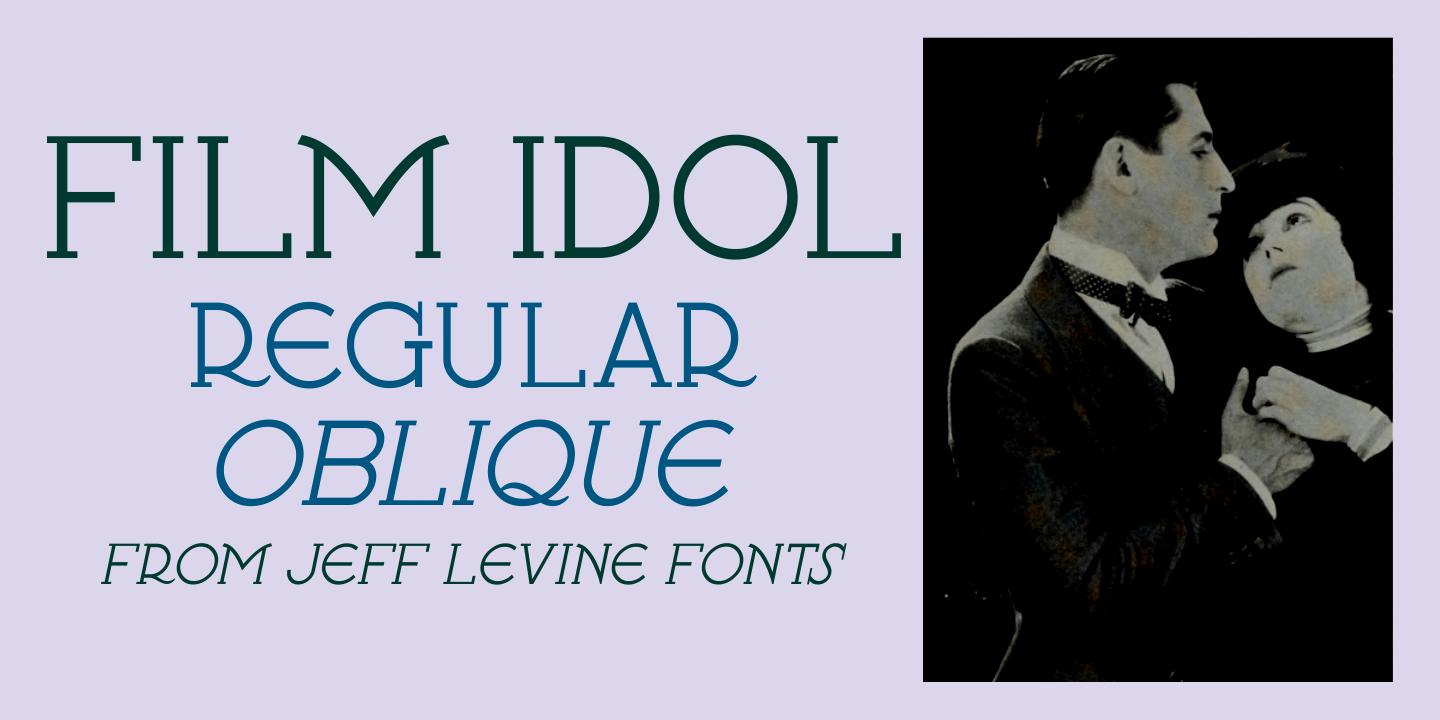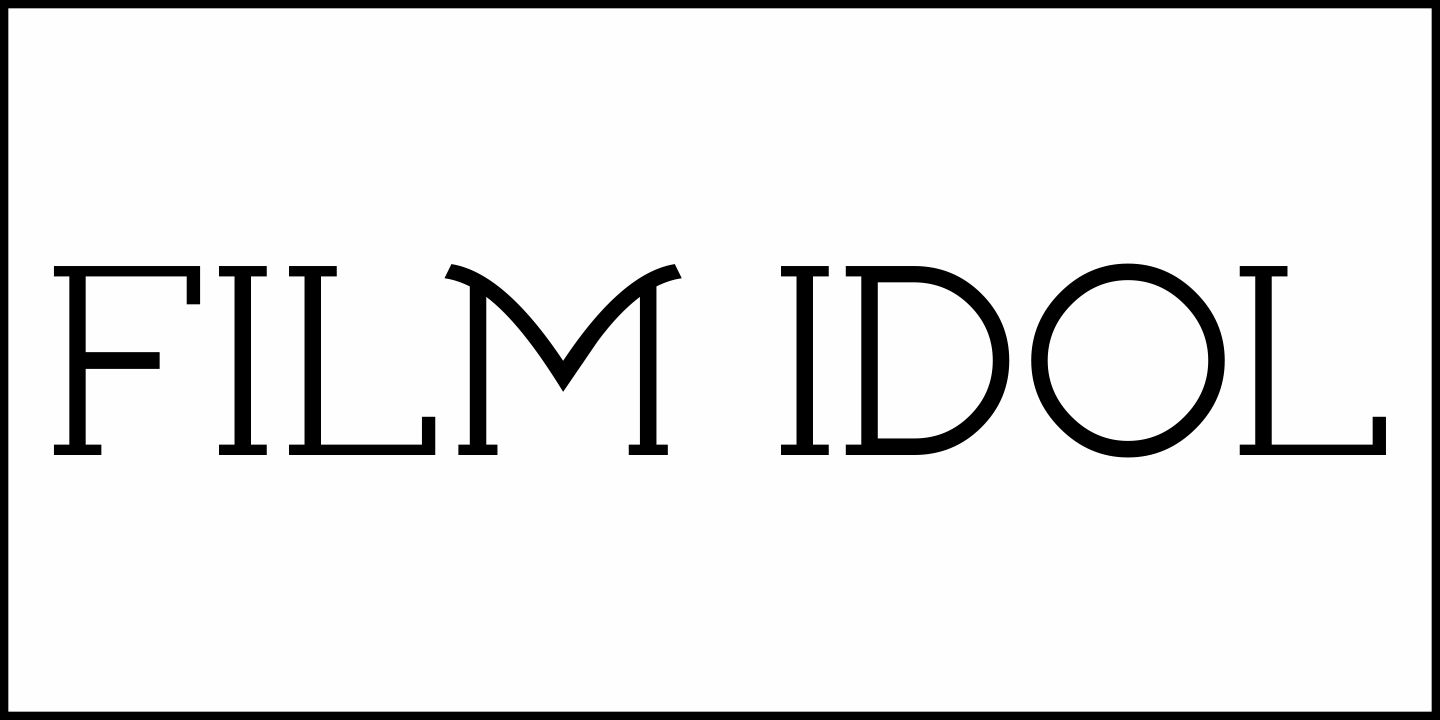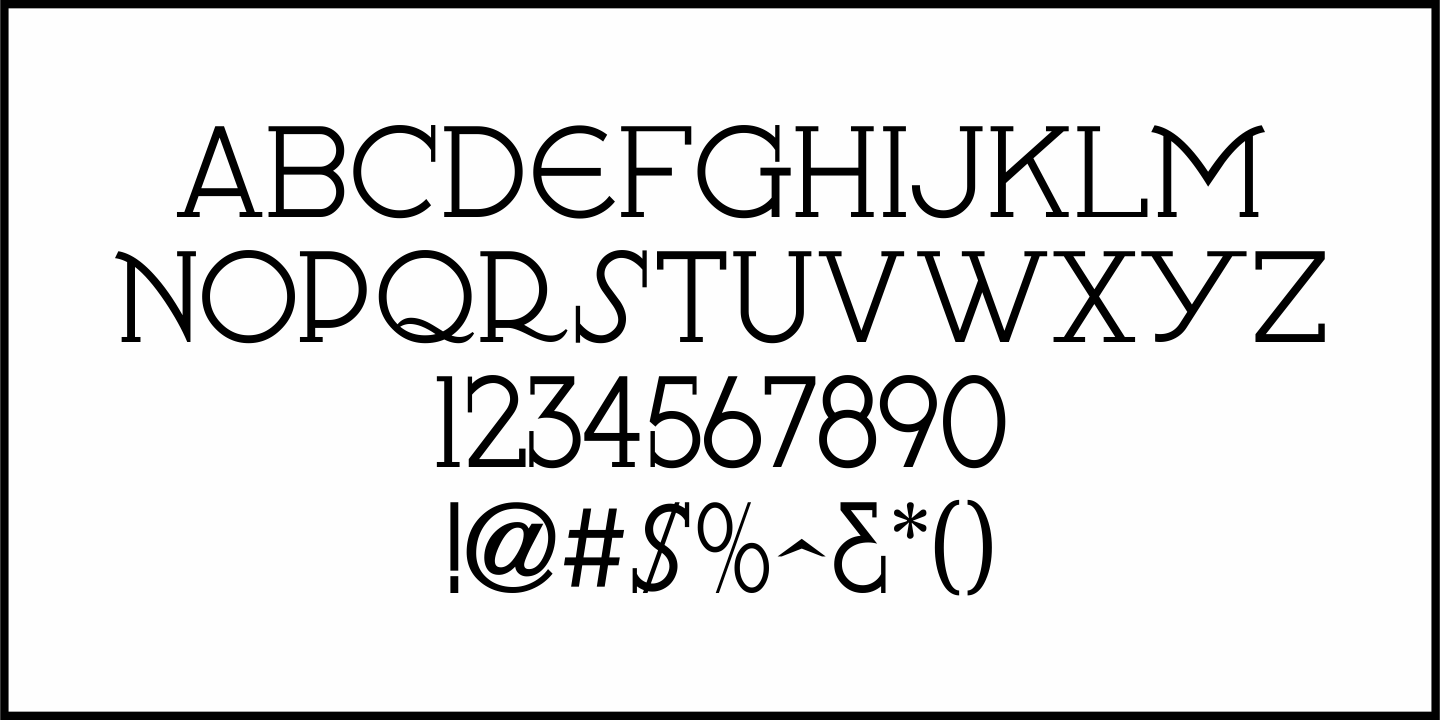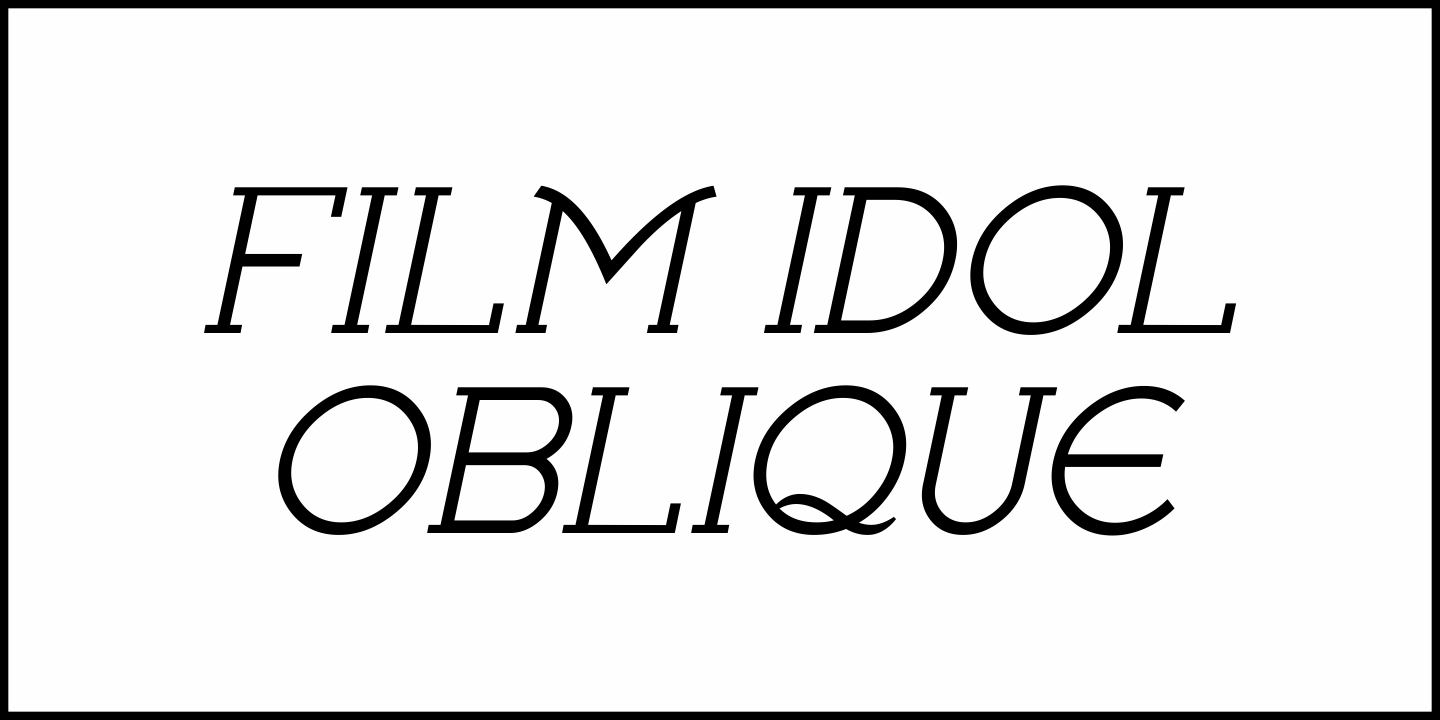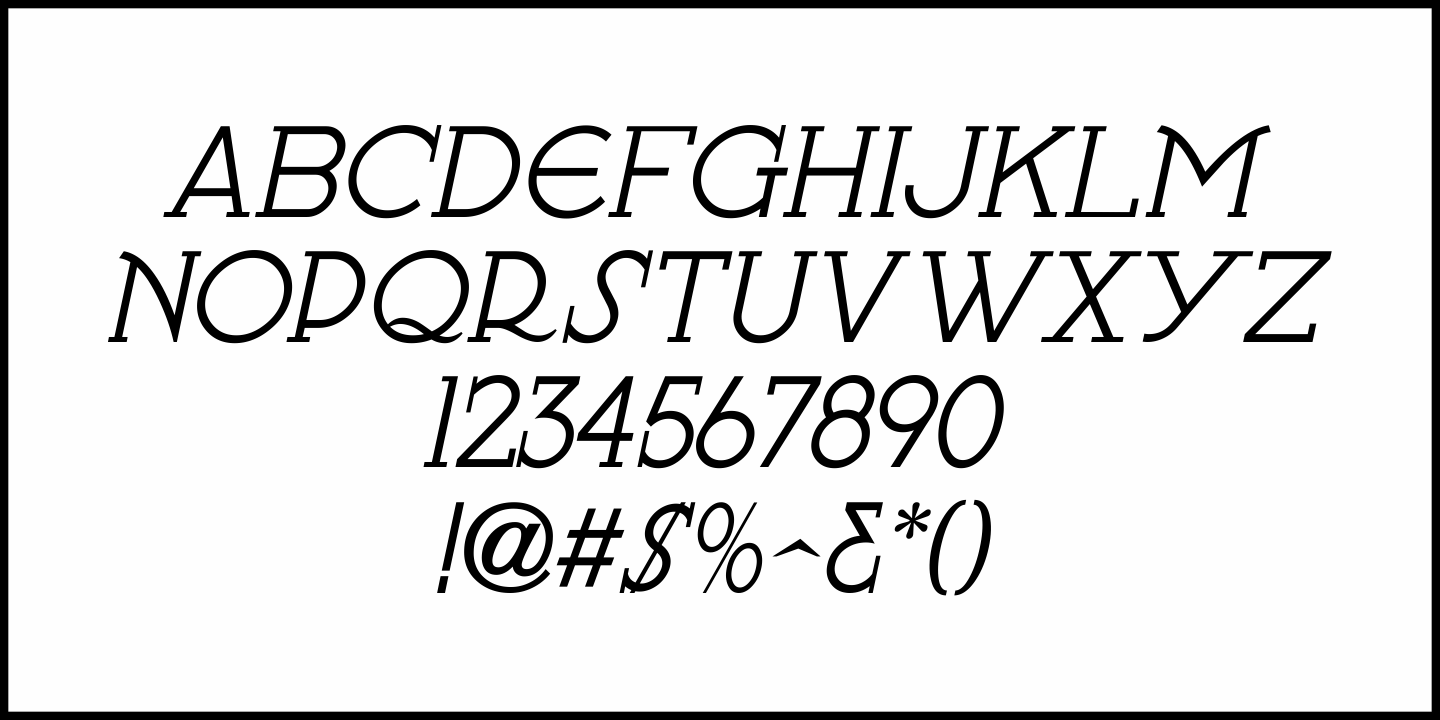
Film Idol
An ad in the May 2, 1931 issue of Motion Picture Herald for the Marlene Dietrich film "Indiscretion" inspired Film Idol JNL, which is available in both regular and oblique versions.
This unique design features a stylized take on slab serif lettering that typifies the Art Deco influences of the 1930s.